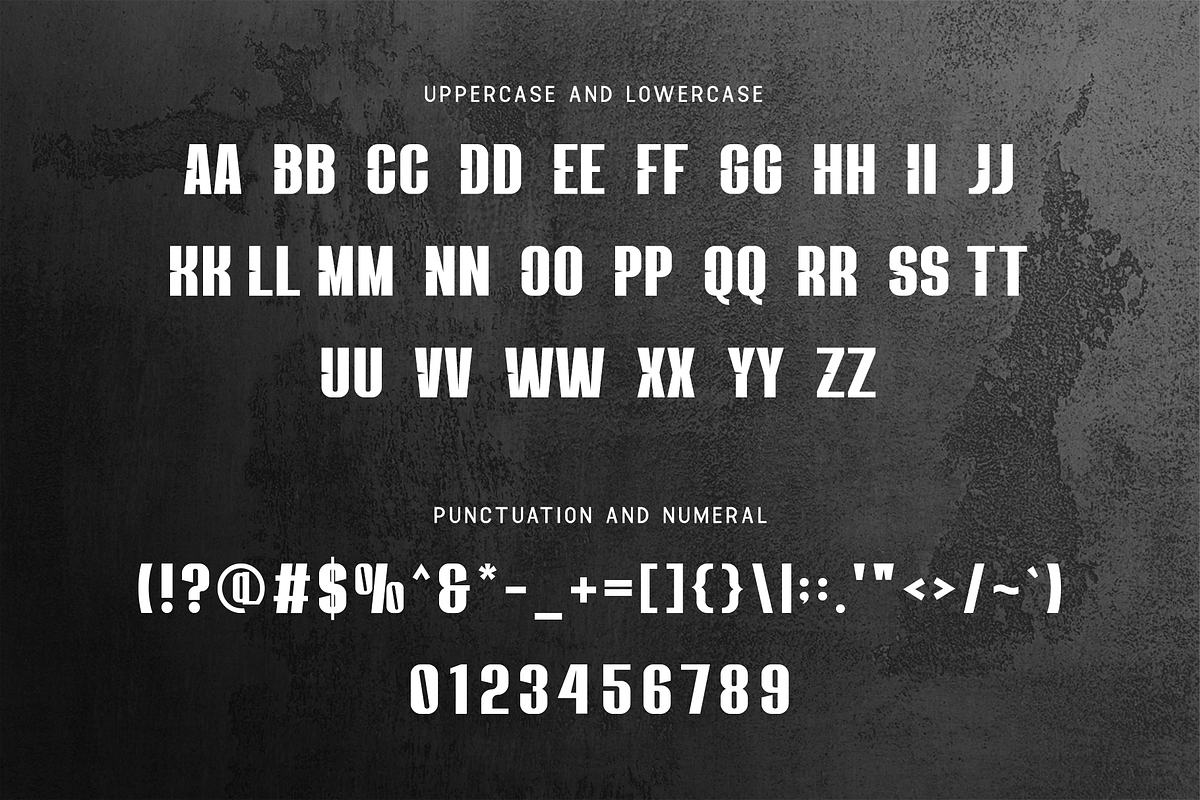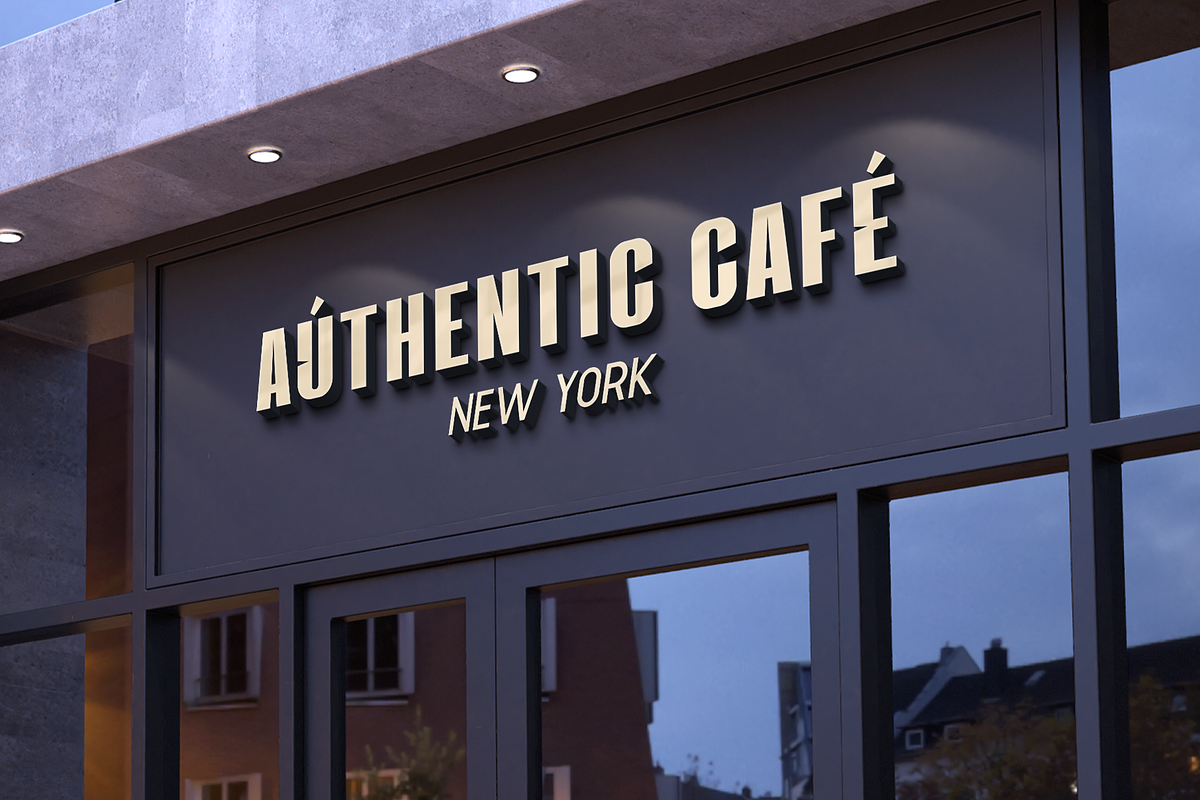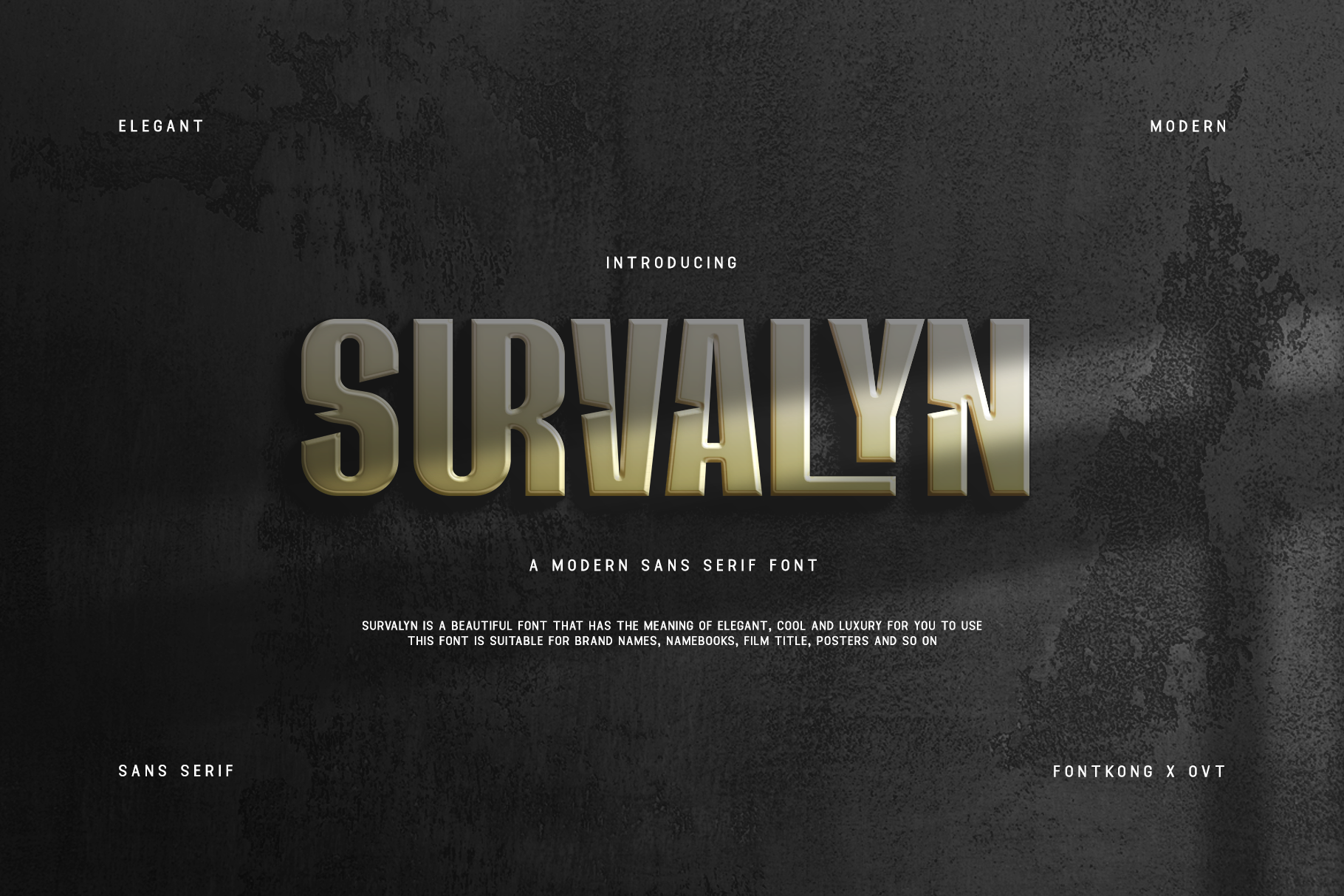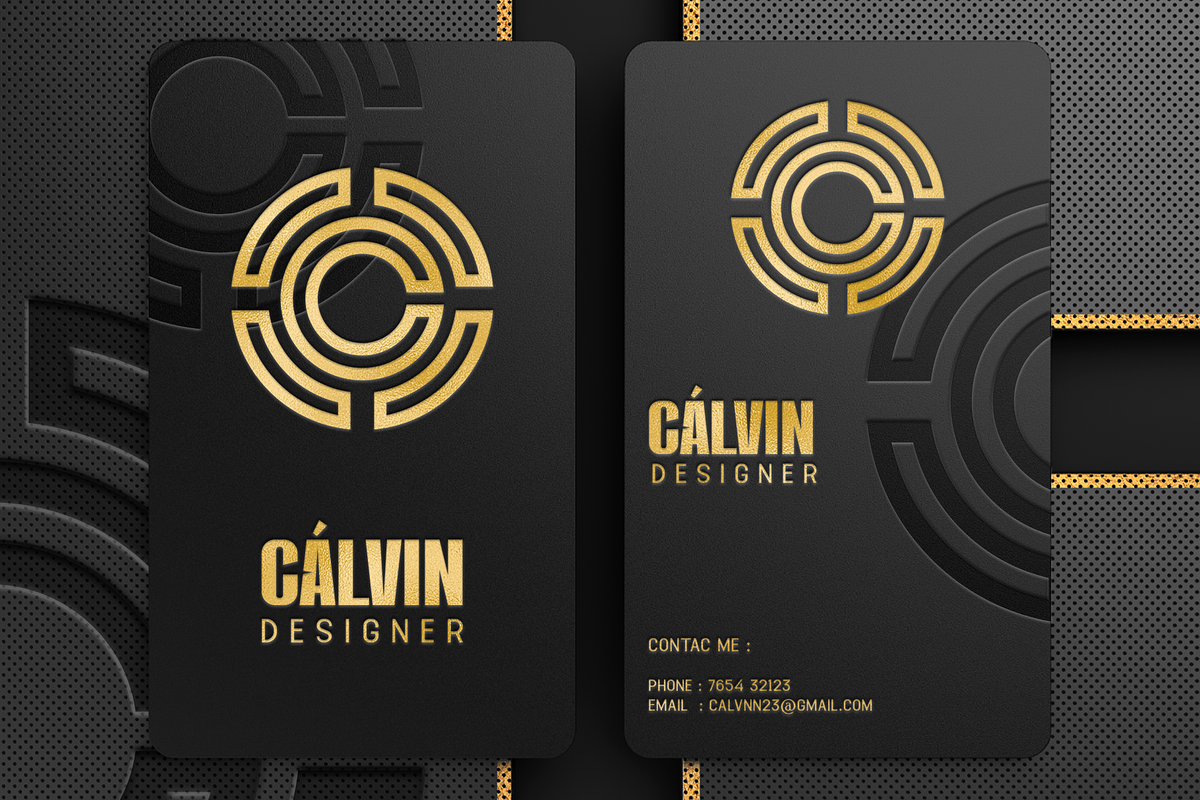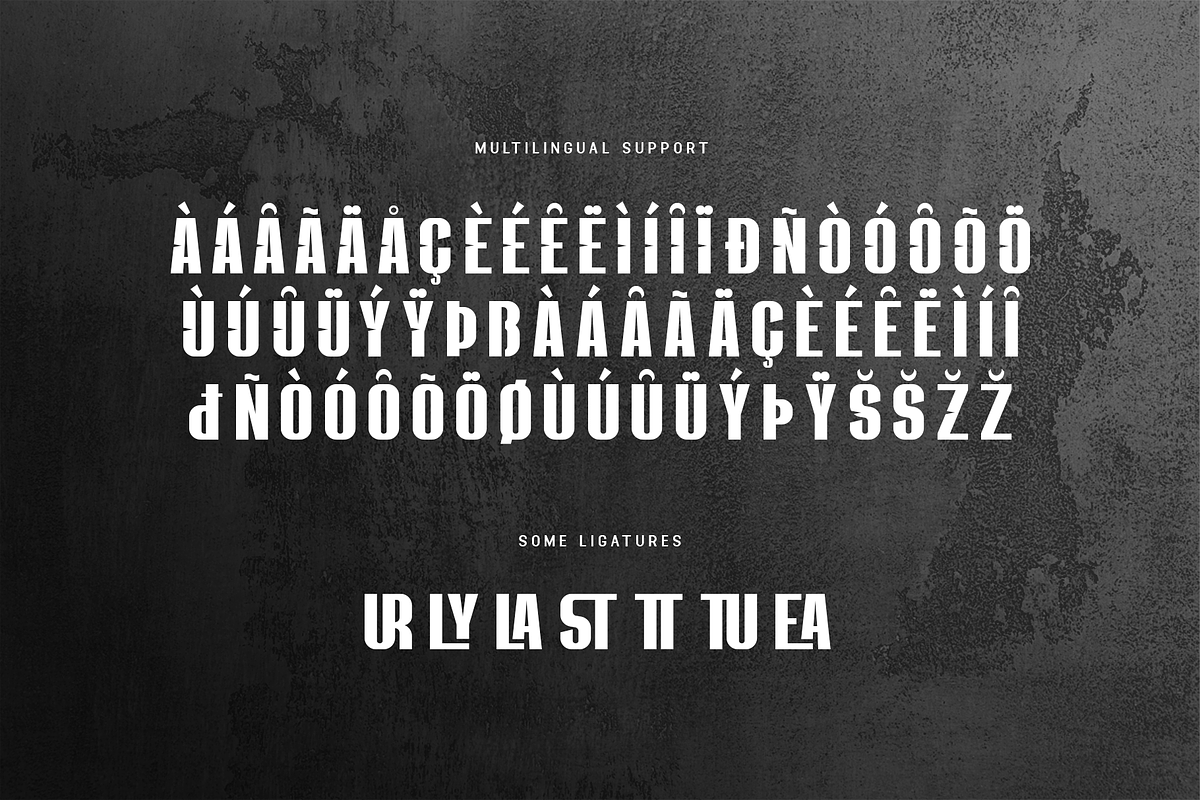
Survalyn - Modern Sans Serif Font
Meet "Survalyn," a modern sans serif font designed to make a bold impact with its sleek simplicity. With clean lines and contemporary styling, Survalyn offers versatility and style for a wide range of design projects.
Crafted with precision and attention to detail, Survalyn strikes the perfect balance between minimalist aesthetics and impactful design. Whether you're creating editorial layouts, branding materials, or digital designs, this font commands attention and leaves a lasting impression.
Featuring a range of weights and styles, Survalyn provides flexibility and adaptability for any design endeavor. Its extensive character set includes alternates, ligatures, and swashes, allowing you to customize your typography with ease and precision.
Experience the power of sleek simplicity with the bold impact of Survalyn.